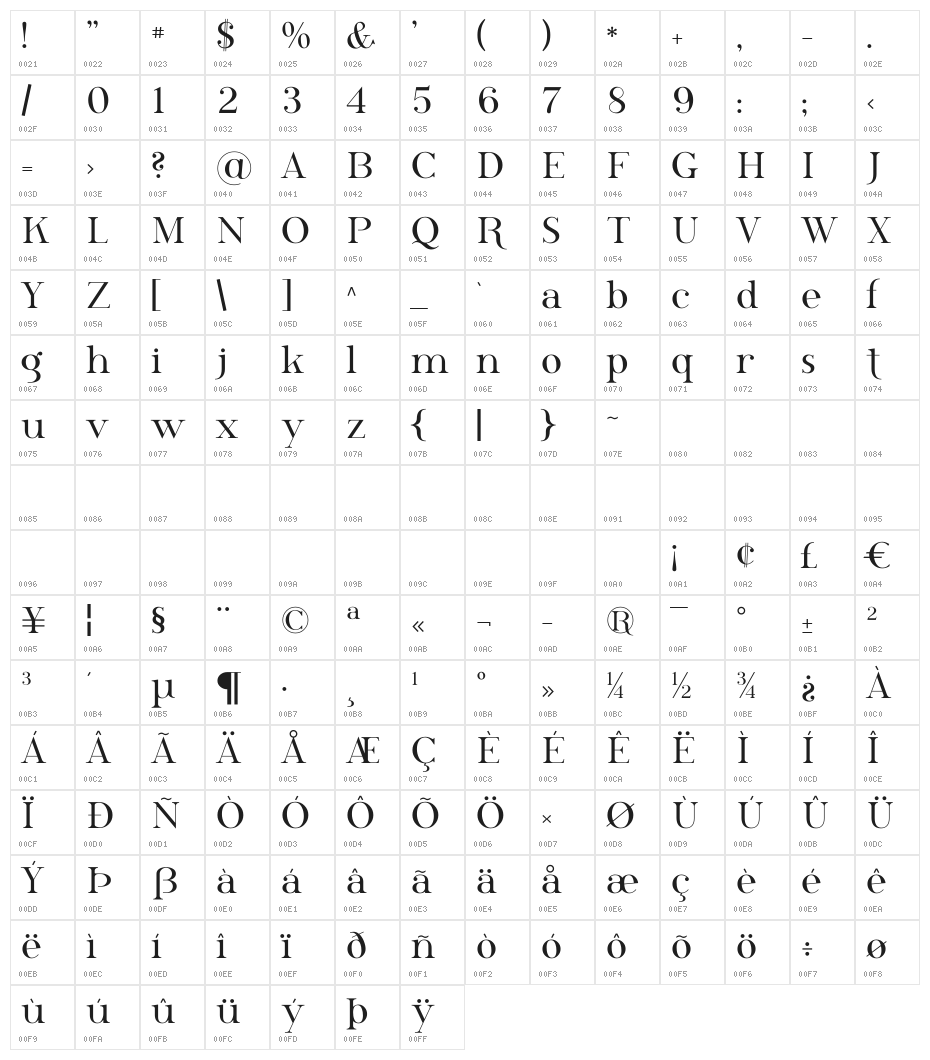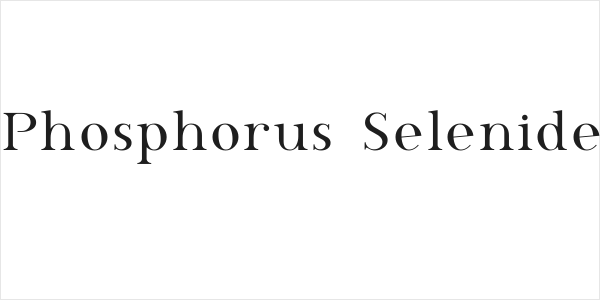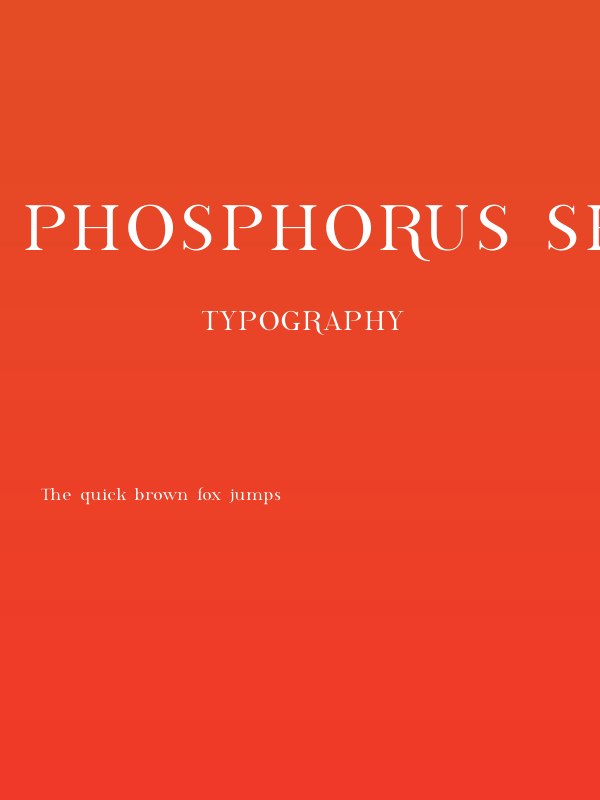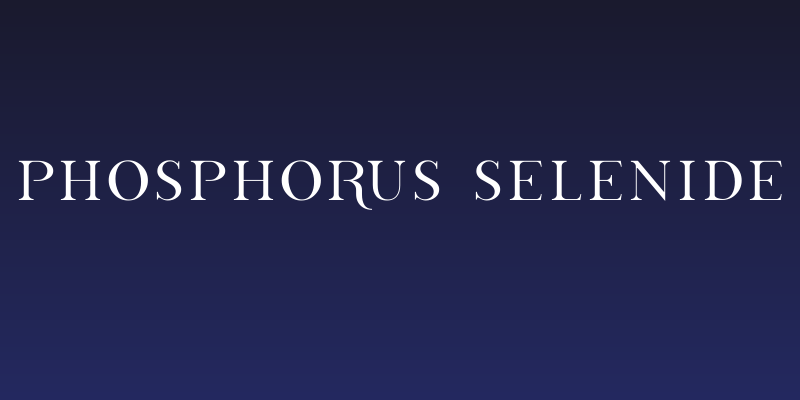
Phosphorus Selenide Font
Phosphorus Selenide Description
This font exhibits a classic serif style with elegant and refined characteristics. The uppercase letters are bold and commanding, while the lowercase letters maintain a graceful flow. The numerals are clear and balanced, providing excellent readability. Special characters are designed with a touch of sophistication, enhancing the overall aesthetic. The font's contrast in stroke thickness adds to its timeless appeal, making it suitable for a variety of formal and professional applications.